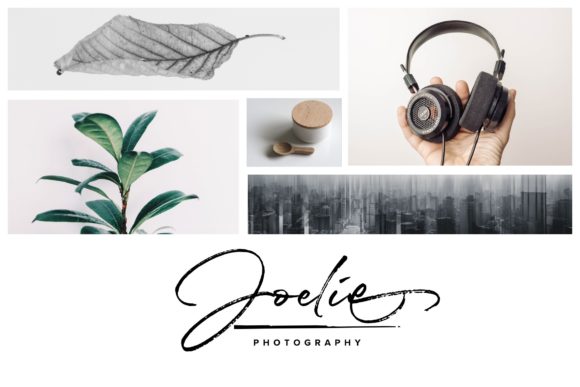
Introducing Melodiously Script Font: A Timeless Handwritten Masterpiece
In the world of typography, few fonts manage to capture the essence of elegance and sophistication as effortlessly as Melodiously Script. This lovely and timeless handwritten font has been making waves in the design community, and for good reason. Its unique blend of classic charm and modern flair makes it the perfect choice for creating eye-catching logos, branding, and quotes that leave a lasting impression.
The Story Behind Melodiously Script
Melodiously Script is more than just a font – it’s a work of art. Crafted with precision and passion, this beautiful handwritten font is designed to evoke emotions and add a touch of personality to any design project. Whether you’re a seasoned designer or a DIY enthusiast, Melodiously Script is sure to inspire your creativity and take your designs to the next level.
What Makes Melodiously Script So Special?
So, what sets Melodiously Script apart from other fonts? For starters, its timeless quality ensures that it will never go out of style. Unlike trendy fonts that fade away with time, Melodiously Script remains a classic choice that will continue to impress audiences for years to come. Additionally, its handwritten nature adds a touch of warmth and humanity to any design, making it perfect for projects that require a personal touch.
The Benefits of Using Melodiously Script
Melodiously Script offers a range of benefits that make it an ideal choice for designers and non-designers alike. Some of the key advantages of using this font include:
- Elegance and Sophistication: Melodiously Script exudes elegance and sophistication, making it perfect for high-end branding and luxury designs.
- Timeless Quality: As mentioned earlier, Melodiously Script has a timeless quality that ensures it will never go out of style.
- Versatility: This font is incredibly versatile, making it suitable for a wide range of design projects, from logos and branding to quotes and social media graphics.
- Easy to Use: Melodiously Script is PUA encoded, which means you can access all of the glyphs and swashes with ease.
How to Use Melodiously Script
Using Melodiously Script is incredibly easy, even if you’re new to design. Here are a few tips to get you started:
- Pair it with Other Fonts: Melodiously Script looks great when paired with other fonts. Try combining it with a clean sans-serif font for a striking contrast.
- Experiment with Colors: This font looks great in a range of colors, from bold and bright to soft and pastel.
- Don’t Be Afraid to Get Creative: Melodiously Script is a versatile font that can be used in a variety of creative ways. Don’t be afraid to experiment and try new things.
The Power of PUA Encoding
One of the standout features of Melodiously Script is its PUA encoding. But what does this mean, exactly? PUA (Private Use Area) encoding is a way of encoding fonts that allows designers to access a wide range of glyphs and swashes. This means that you can easily add flourishes and other decorative elements to your designs, taking them to the next level.
Designing with Melodiously Script
So, how can you use Melodiously Script in your designs? Here are a few ideas to get you started:
- Logos and Branding: Melodiously Script is perfect for creating eye-catching logos and branding materials.
- Quotes and Social Media Graphics: This font is also great for creating inspiring quotes and social media graphics.
- Invitations and Stationery: Melodiously Script can be used to create beautiful invitations, stationery, and other paper goods.
In conclusion, Melodiously Script is a truly special font that offers a unique blend of elegance, sophistication, and creativity. Its timeless quality, versatility, and ease of use make it an ideal choice for designers and non-designers alike. Whether you’re looking to create eye-catching logos, branding, and quotes, or simply want to add a touch of personality to your designs, Melodiously Script is the perfect choice.